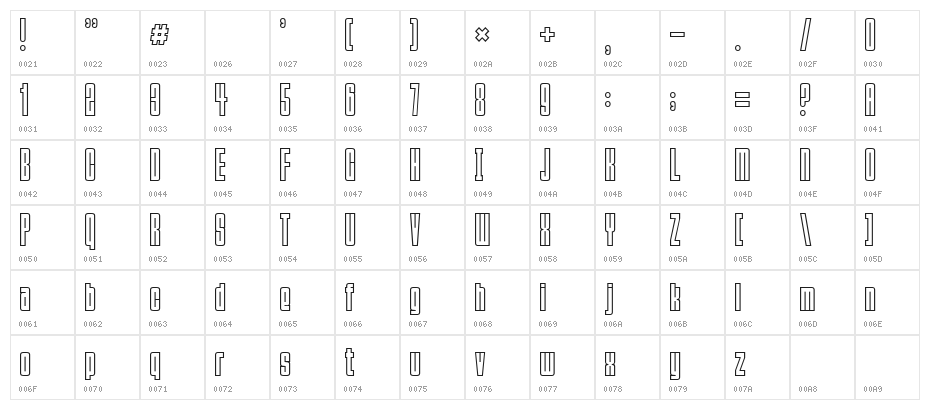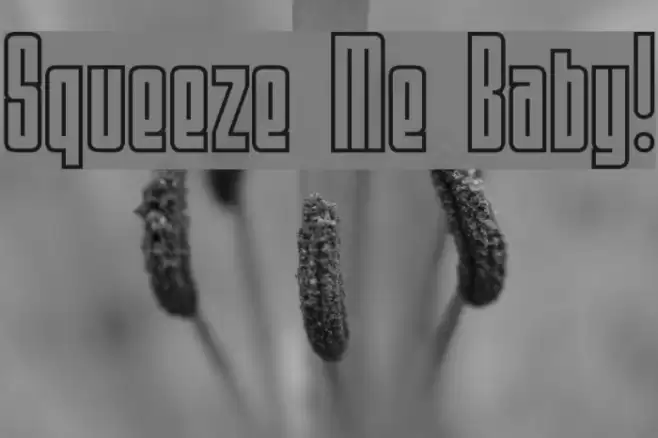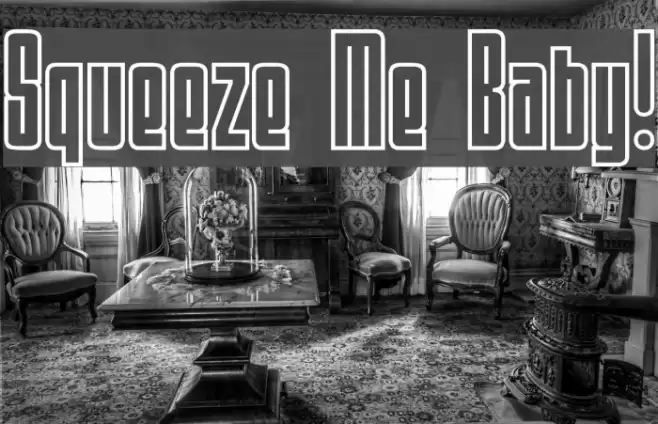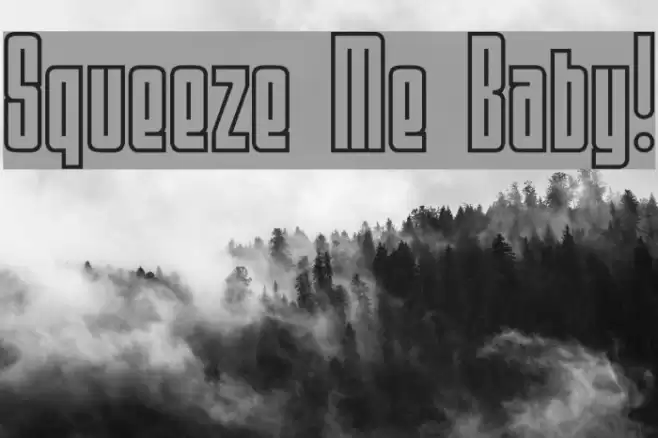
Squeeze Me Baby! Font
Squeeze Me Baby! Description
This font features a bold, geometric design with a distinct outline style that gives it a modern and impactful appearance. The characters are tall and narrow, creating a condensed look that maximizes vertical space. The uppercase and lowercase letters maintain a consistent height, contributing to a uniform and structured aesthetic. The numbers and special characters follow the same design principles, ensuring cohesion across all elements. The outlined nature of the font adds a layer of complexity and visual interest, making it suitable for eye-catching designs.
| Proposed Projects | Ideal for posters, headlines, logos, and any design requiring a striking, modern typeface. |